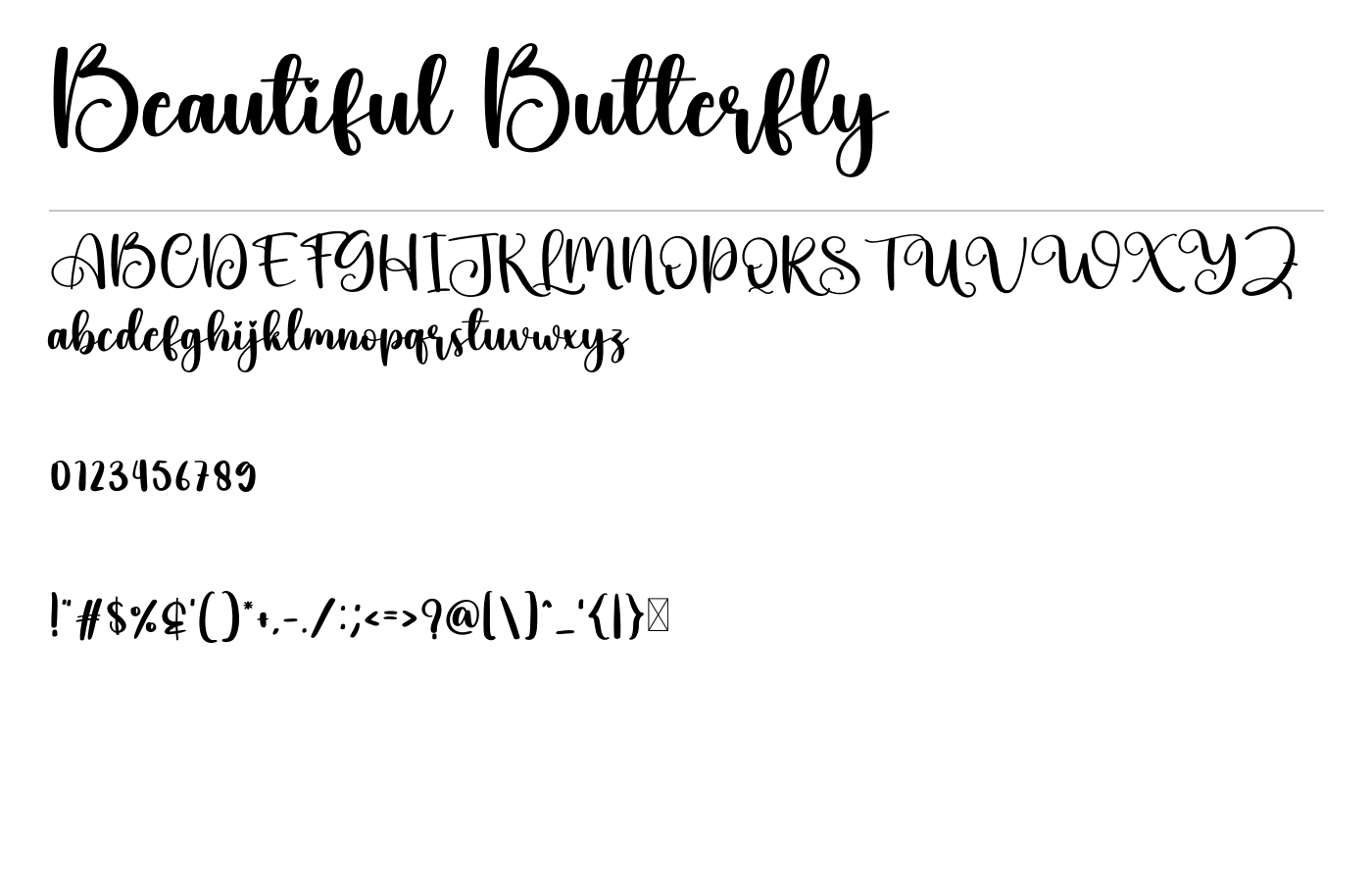
Beautiful Butterfly is a playful and elegant script font featuring flowing, hand-drawn letterforms with a lively and whimsical feel. Its well-balanced mix of thick and thin strokes, along with distinctive swashes and curls, makes it perfect for creative branding, invitations, and decorative headlines that want to convey charm and personality. This font shines in projects needing a friendly, artistic touch that feels both refined and approachable.
Beautiful Butterfly Font